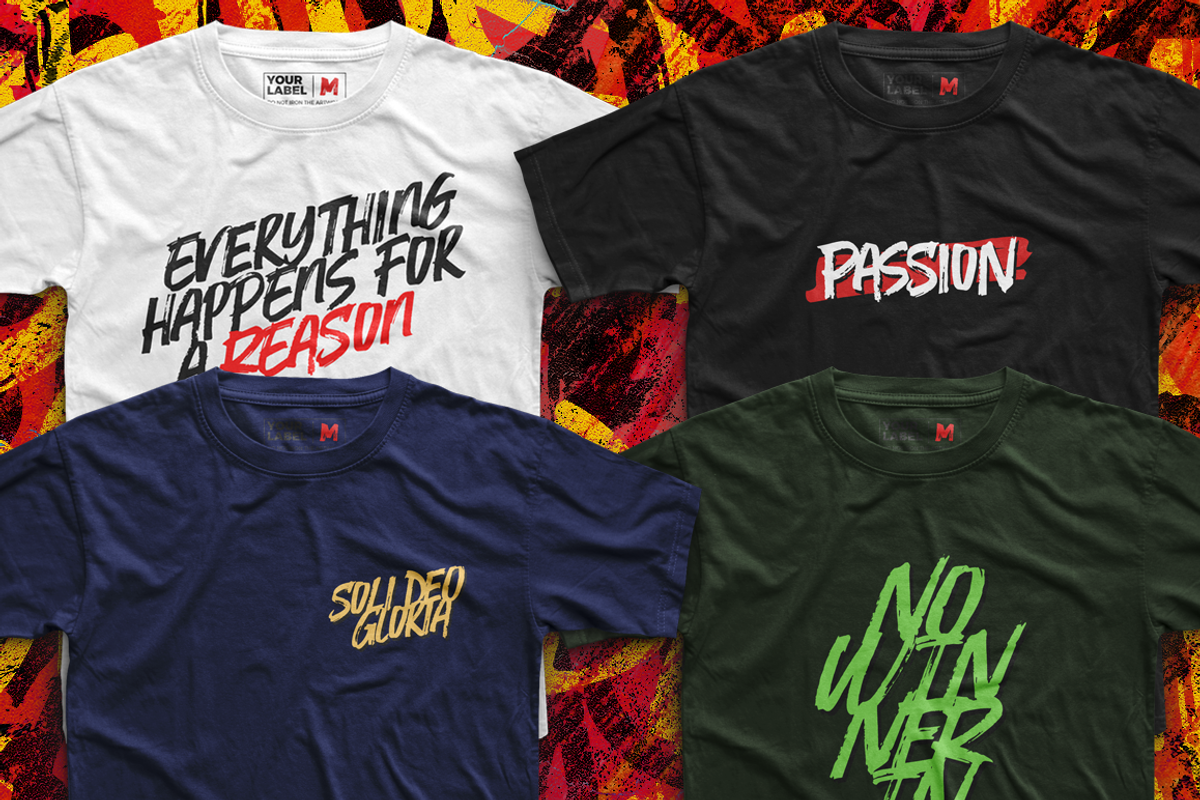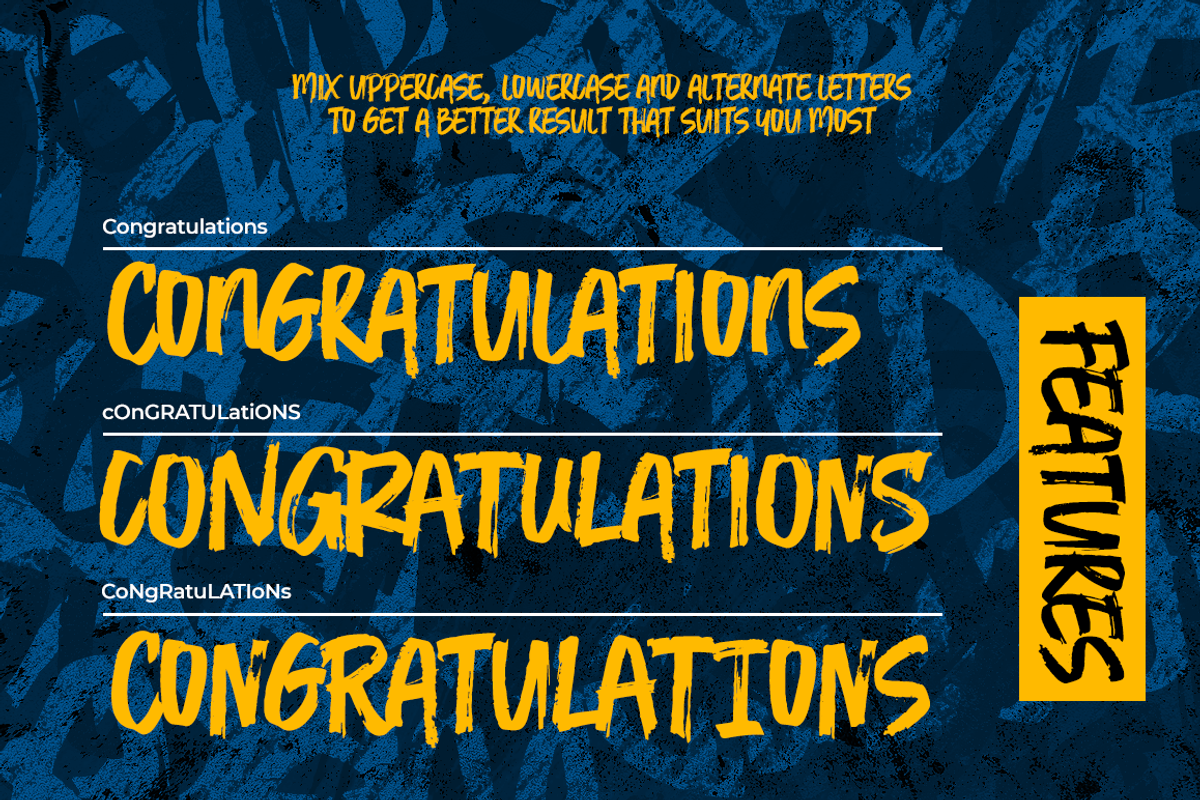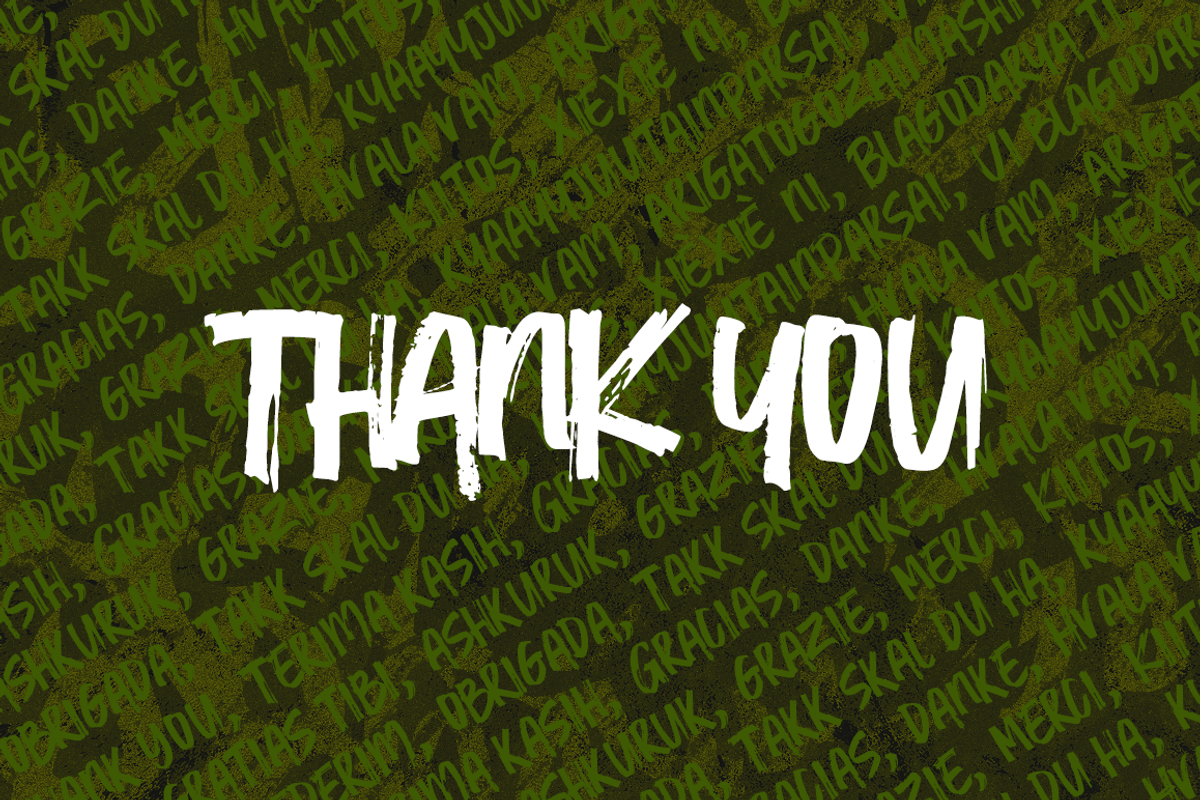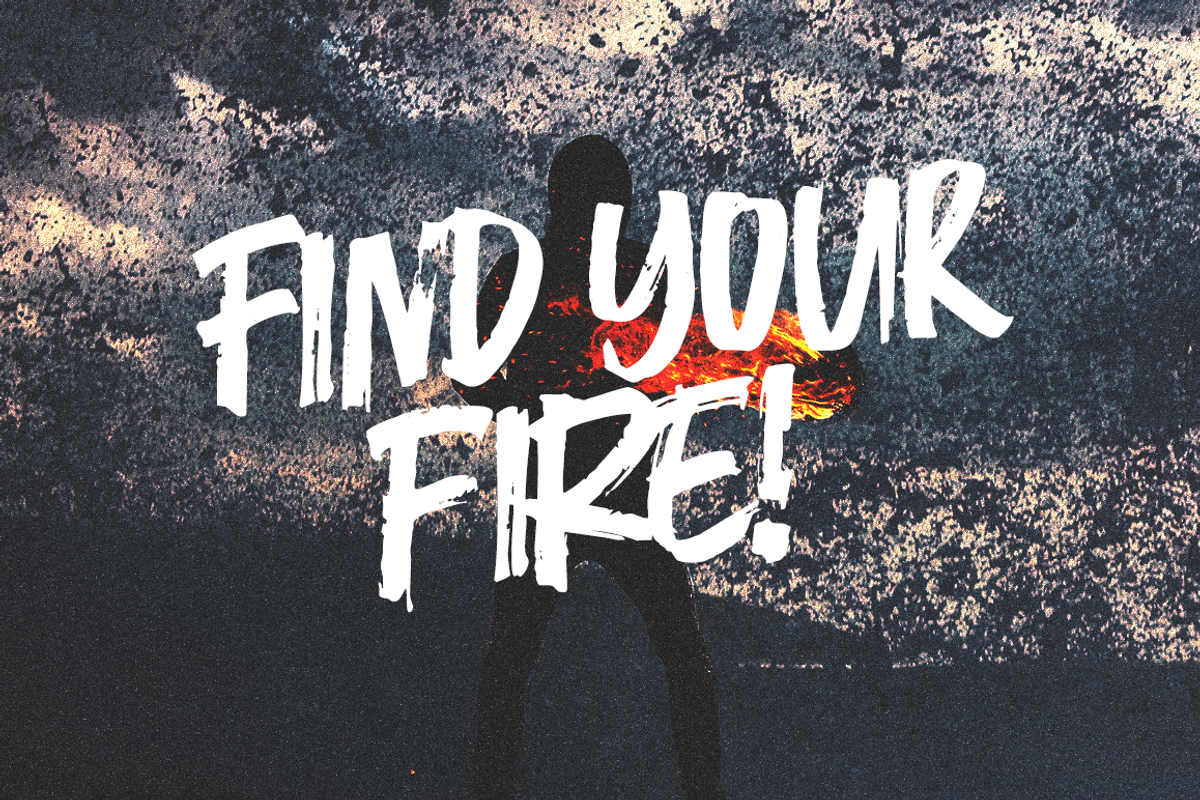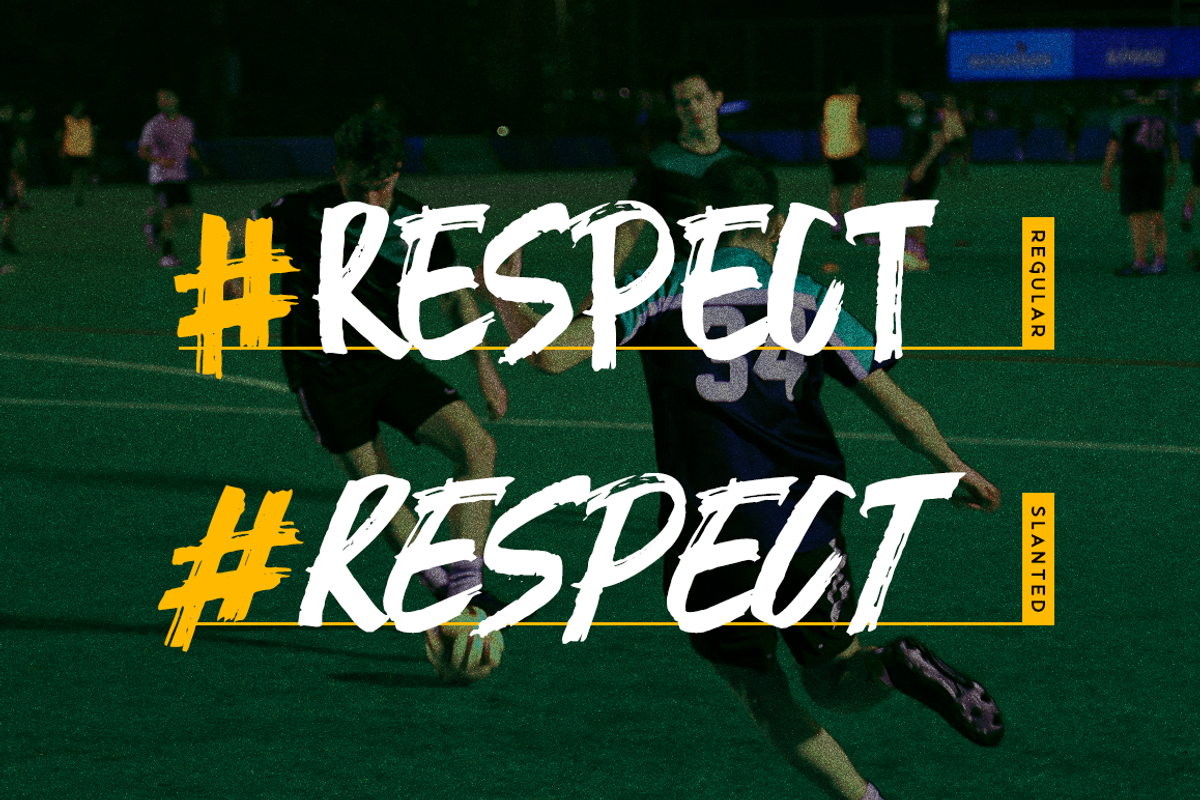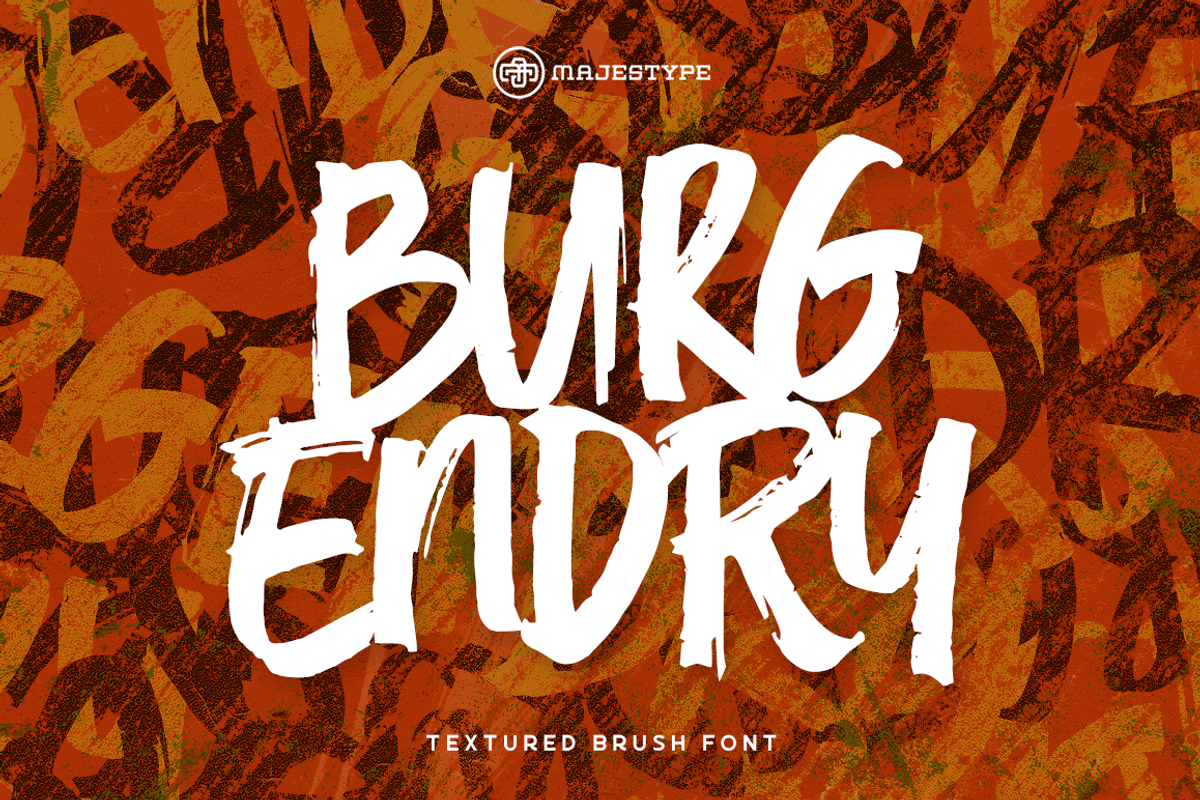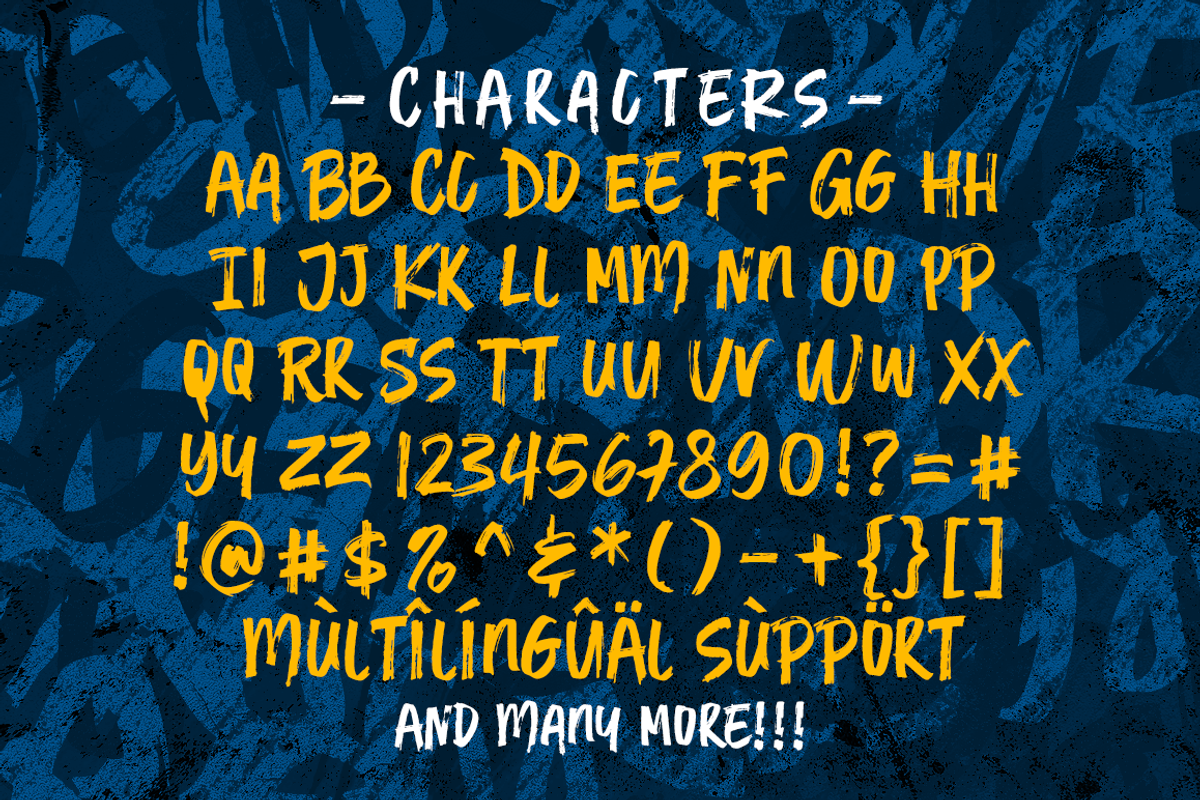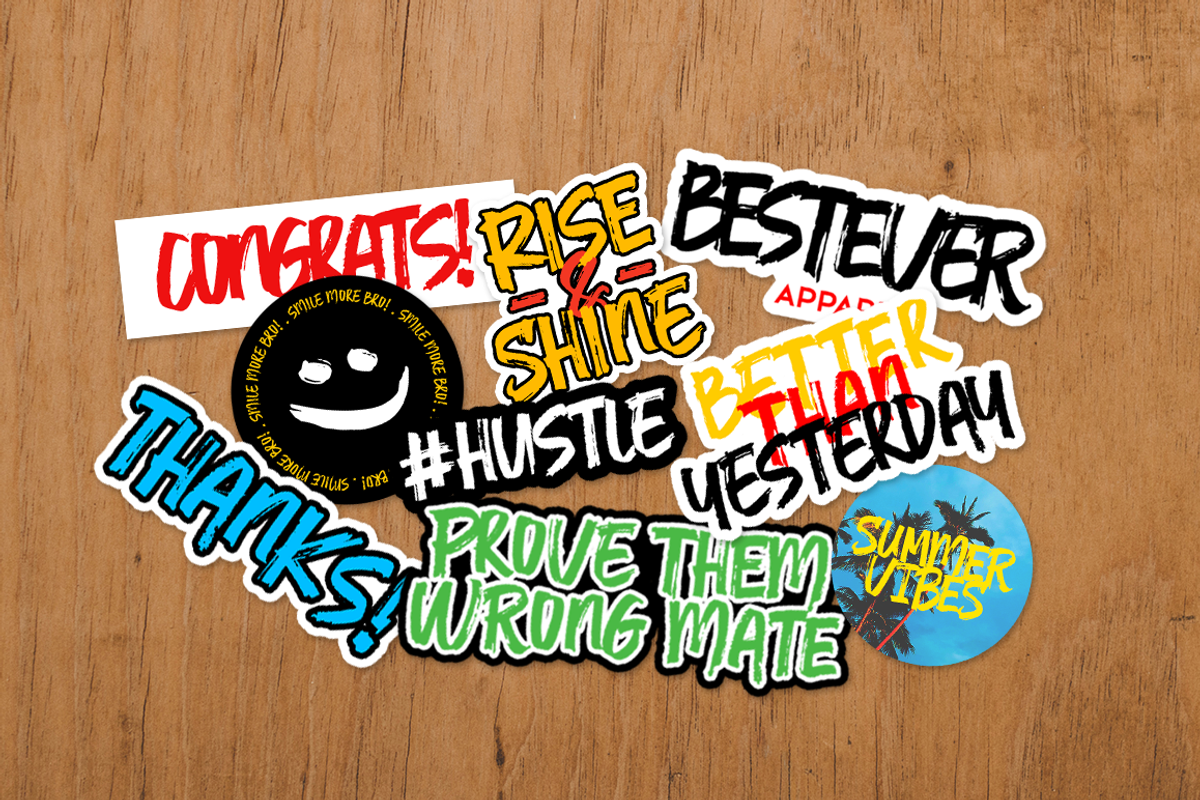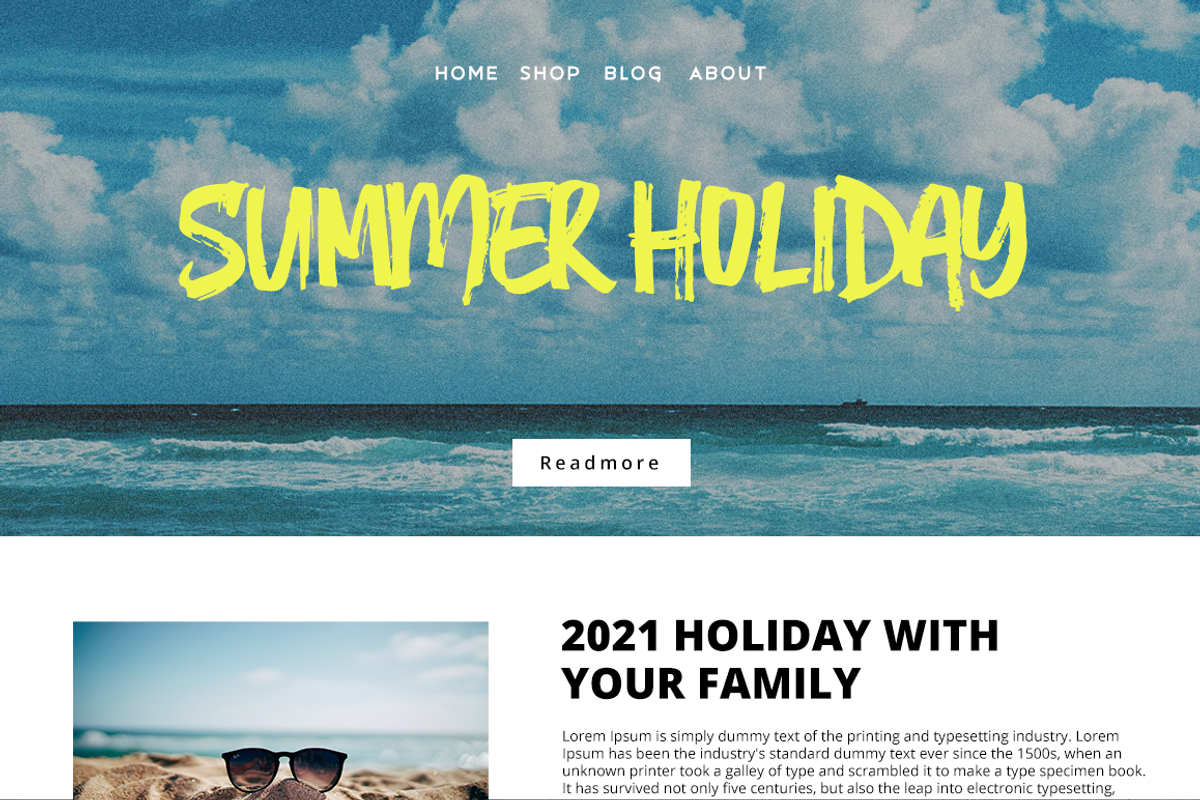
Burgendry - Brush Graffiti Font
Take your design game to the next level with Burgendry, a bold and high-detail brush font that's perfect for creating t-shirts, stickers, sports designs, and more. With regular and slanted versions available, you can give your projects a unique and distinctive feel that's sure to impress.
Equipped with an open-type feature and over 300 glyphs, Burgendry is the ultimate tool for today's designers. Whether you're creating headlines, quotes, logos, brandings, or posters, this font has everything you need to make your designs stand out. Plus, with language support for almost all European languages, Burgendry is accessible to designers all over the world. Check out the supported languages by typing specific letters in the font preview and discover how versatile and dynamic this font can be.
Enjoy the beautiful summer vibes that this font brings and unleash your creativity today with Burgendry.